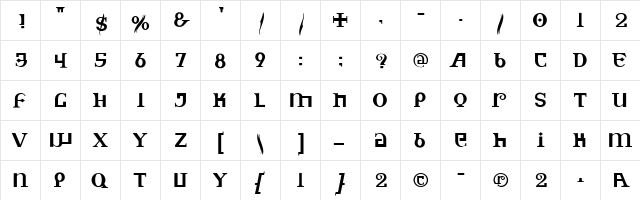
Neo Bold
Design Context for Neo Typeface
Neo is a composed and adaptable typeface that performs quietly and consistently across a wide range of design contexts. Its bold stroke weight gives it real presence on the page.